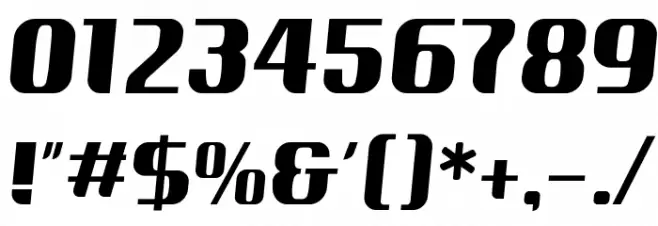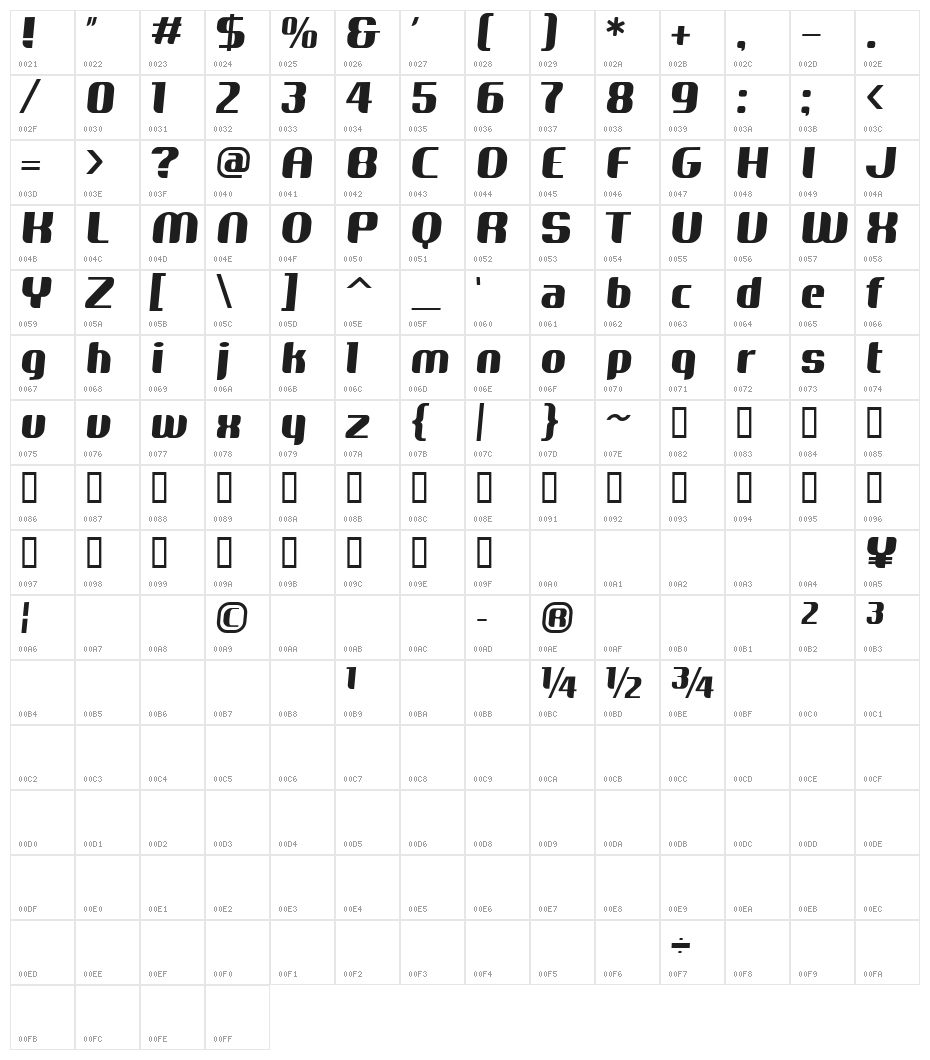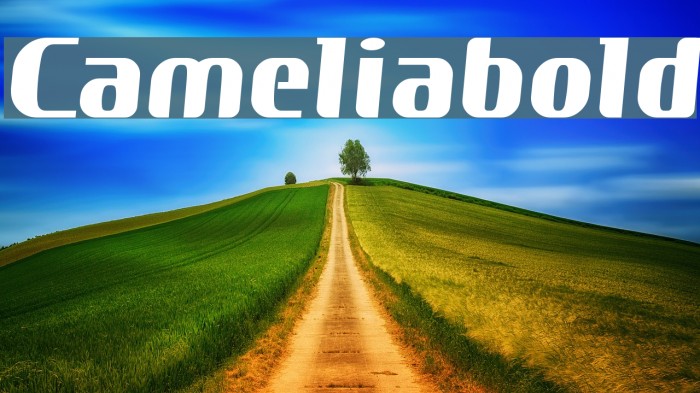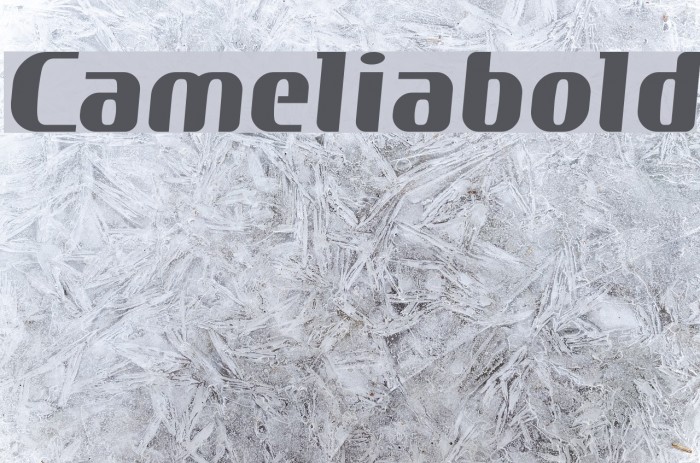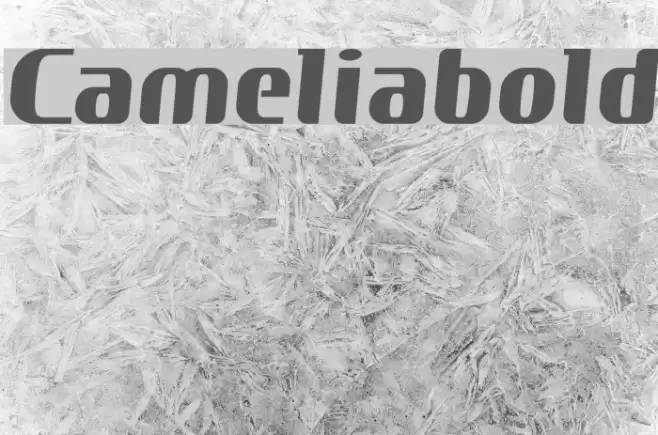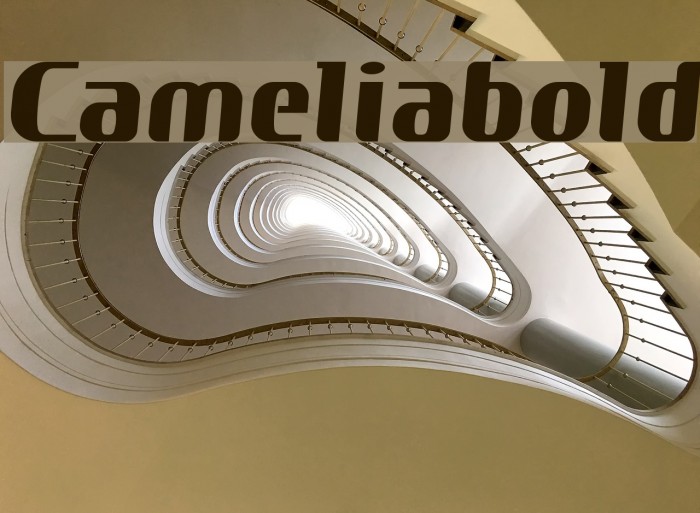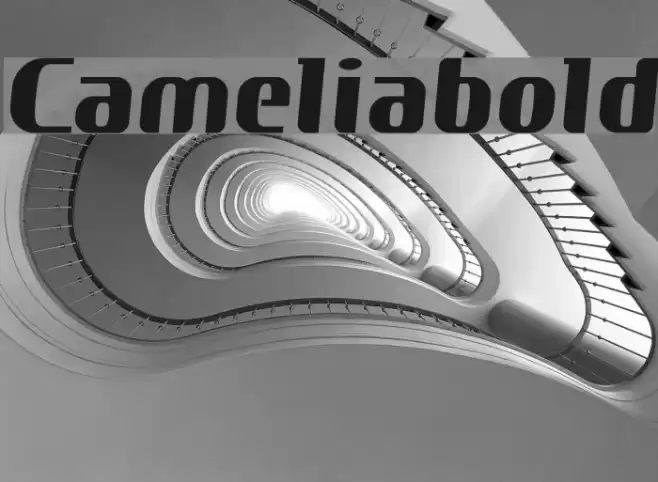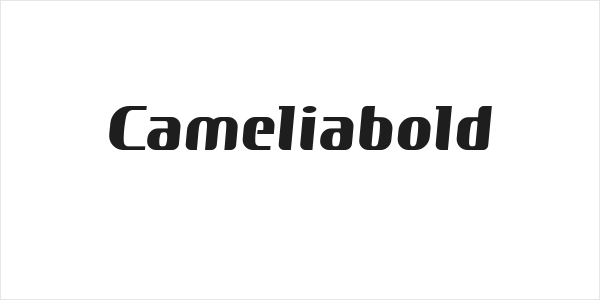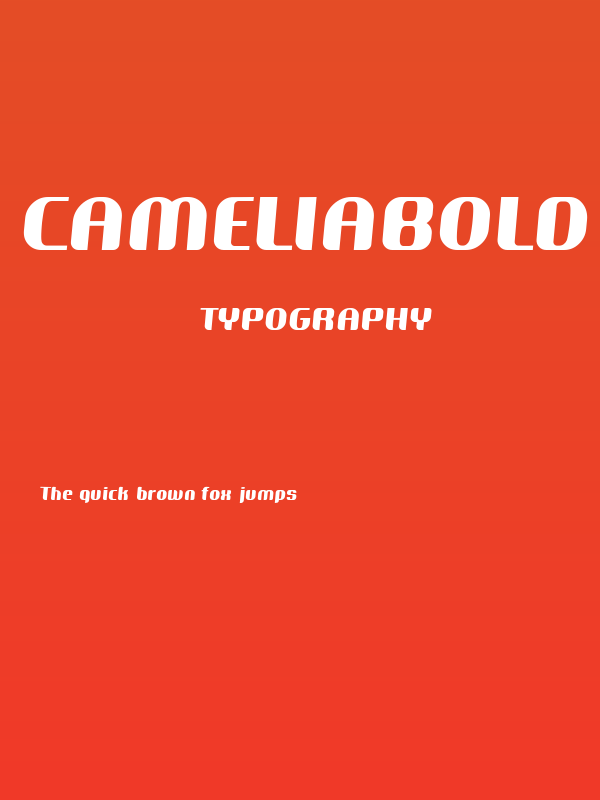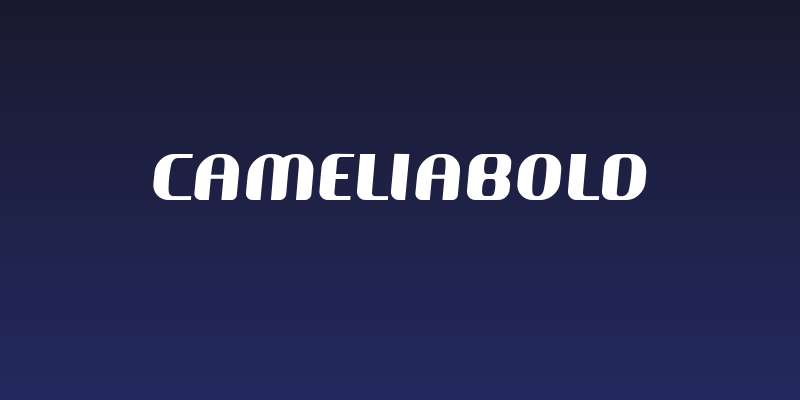
Cameliabold Font
This font features a bold and modern design with smooth, rounded edges and a slightly condensed form. The uppercase letters are uniform in height, creating a cohesive and structured appearance. The lowercase letters maintain a similar style, with a consistent stroke width that adds to the font's boldness. The numerals are clear and easy to read, matching the overall aesthetic of the alphabet characters. Special characters are included, maintaining the same bold and rounded style, ensuring versatility in various design applications. The font's strong presence makes it suitable for attention-grabbing headlines and impactful designs.